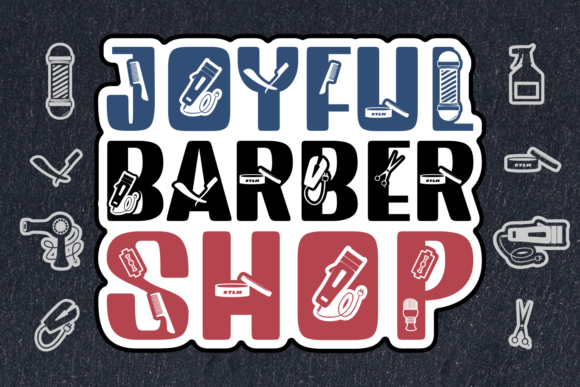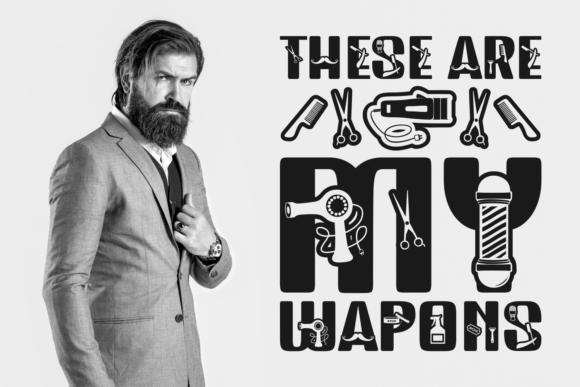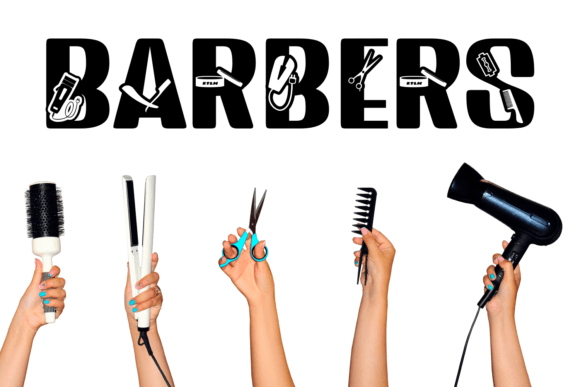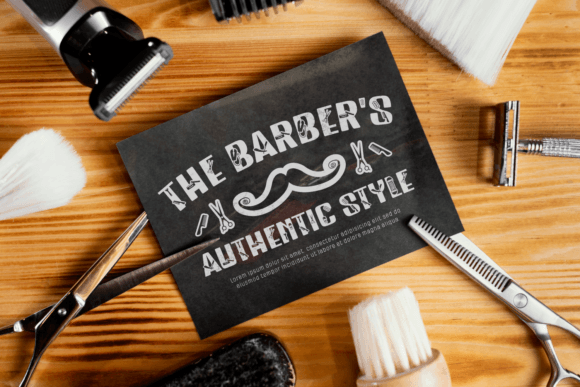
Joyful Barbershop Font: A Bold Decorative Font for Creative Branding
About the Joyful Barbershop Font
From logos to headlines, the Joyful Barbershop Font is the perfect choice for making a lasting impression. Joyful Barbershop is an incredibly unique decorative font. With its various barber-related elements, this font is the perfect choice for branding barbershops, creating advertising materials, web graphics, cards, and many more.
Joyful Barbershop excels in headlines, logos, and short, impactful text for projects needing a vintage, playful feel. It’s ideal for branding materials such as shop signage, business cards, and social media graphics. However, its decorative nature makes it unsuitable for body text or lengthy paragraphs; readability suffers at smaller sizes.
Consider pairing it with a clean sans-serif like Montserrat for a balanced contrast, or a classic serif like Playfair Display for a more traditional barbershop aesthetic. A simple, geometric sans-serif could also work to ground the design and provide readability in supporting text.
The font’s personality is undeniably bold and friendly, conveying a sense of classic style with a modern twist. Its playful nature makes it perfect for brands that want to communicate a welcoming and approachable image, while still maintaining a professional edge.
Joyful Barbershop Font Usage Examples
Joyful Barbershop Font Example